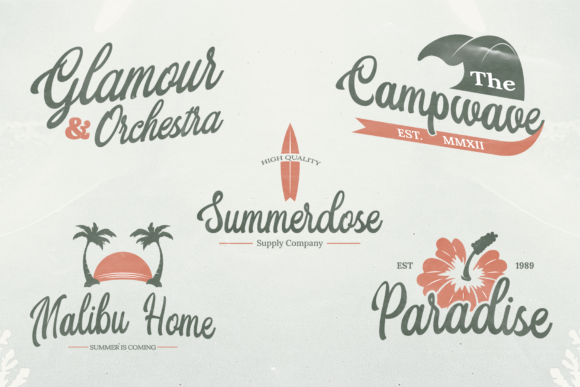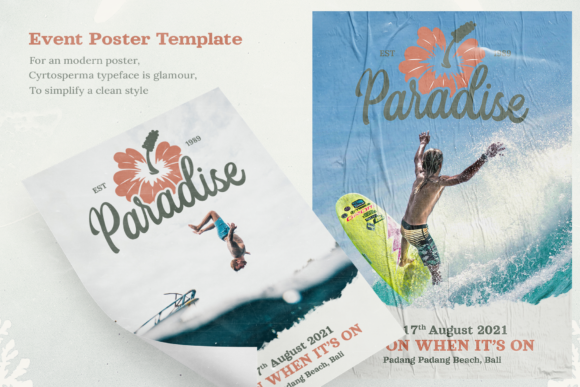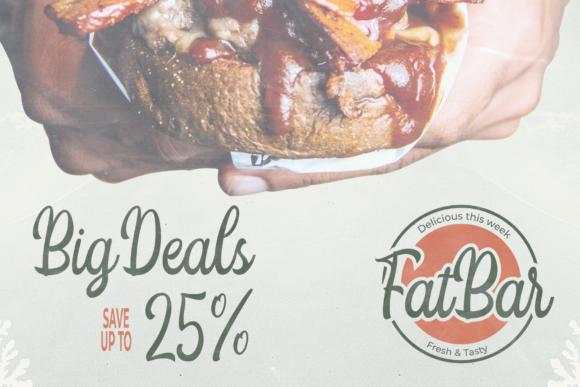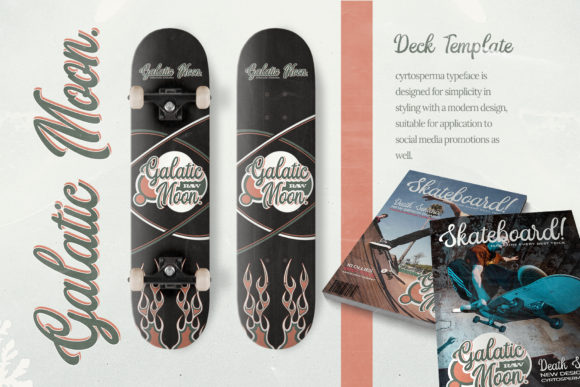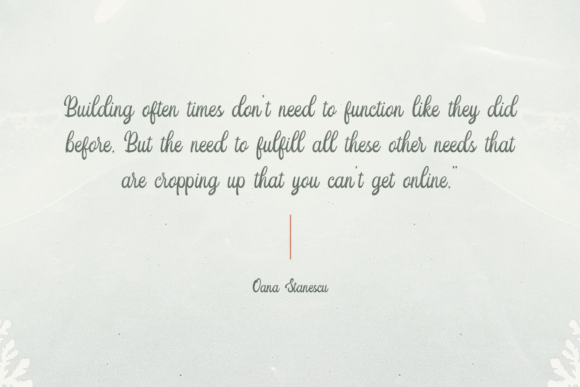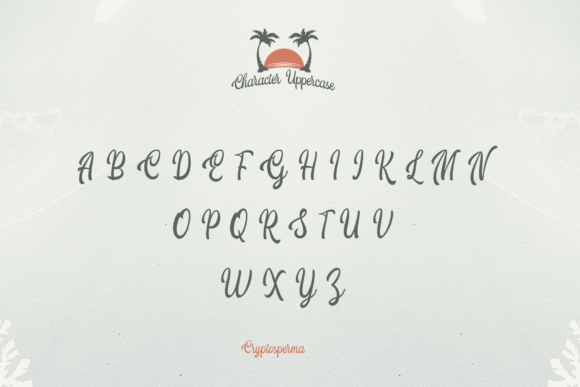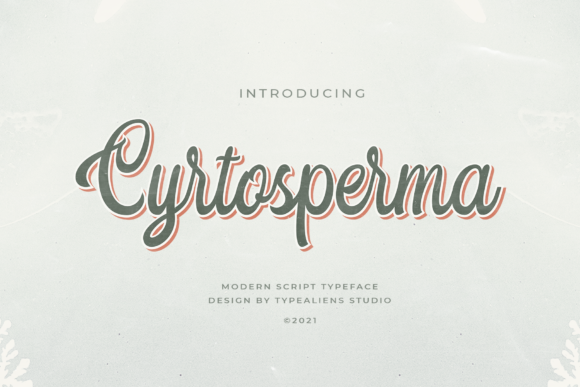
Cyrtosperma Font: Elevate Your Designs with Elegance and Flair
In the world of typography, fonts play a crucial role in conveying the tone and aesthetic of a design. For designers and crafters seeking to add a touch of sophistication and elegance to their projects, Cyrtosperma Font is an exceptional choice. This vintage-styled, handwritten font is characterized by its beautiful, well-balanced characters that effortlessly complement a wide range of designs.
The Beauty of Cyrtosperma Font
Cyrtosperma Font boasts an elegant and flowing script that evokes a sense of nostalgia and refinement. Its unique, handcrafted design ensures that each character is meticulously crafted to provide a harmonious visual experience. The font’s balanced characters make it an ideal selection for various design applications, from creative projects to commercial endeavors.
Key Features of Cyrtosperma Font
• Vintage Style: Cyrtosperma Font’s classic, timeless look makes it perfect for designs that require a touch of nostalgia and sophistication.
• Elegant and Flowing Script: The font’s beautiful, cursive script adds a level of refinement and poise to any design.
• Well-Balanced Characters: Each character is carefully crafted to ensure a harmonious visual experience, making it suitable for a wide range of designs.
• Versatility: Cyrtosperma Font can be used in various design applications, including branding, packaging, and digital media.
Design Applications for Cyrtosperma Font
Cyrtosperma Font’s versatility makes it an excellent choice for various design projects. Some potential applications include:
• Branding and Logo Design: Use Cyrtosperma Font to create a sophisticated and memorable brand identity.
• Stationery and Packaging: Add a touch of elegance to your stationery, packaging, and product labels with this beautiful font.
• Digital Media: Cyrtosperma Font is perfect for creating engaging and refined digital content, such as social media graphics, blog posts, and website headers.
• Crafting and DIY Projects: This font is also suitable for crafters and DIY enthusiasts who want to add a personal touch to their projects, such as handmade cards, scrapbooking, and journaling.
Tips for Using Cyrtosperma Font Effectively
To get the most out of Cyrtosperma Font, consider the following tips:
• Pair with Complementary Fonts: Combine Cyrtosperma Font with other fonts that complement its elegant and flowing script.
• Experiment with Font Sizes: Use different font sizes to create visual hierarchy and add emphasis to specific design elements.
• Play with Colors: Try pairing Cyrtosperma Font with a range of colors to create a unique and eye-catching design.
Cyrtosperma Font is an exceptional choice for designers and crafters seeking to add a touch of elegance and sophistication to their projects. With its vintage-styled, elegant and flowing script, well-balanced characters, and versatility, this font is sure to elevate your designs and make them stand out. Whether you’re working on a creative project or a commercial endeavor, Cyrtosperma Font is an excellent addition to your typography toolkit.